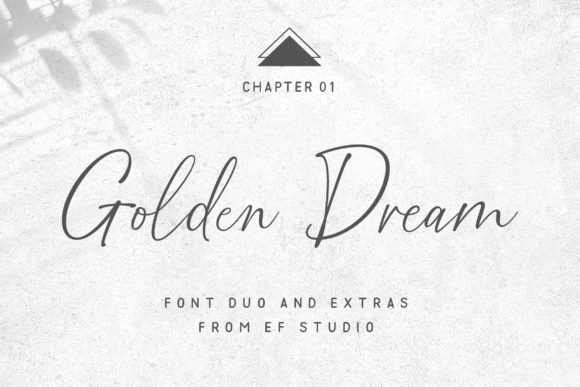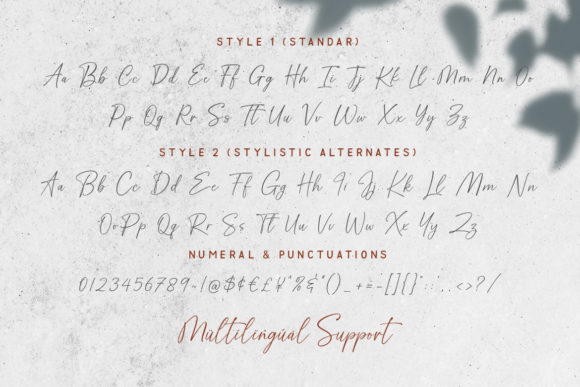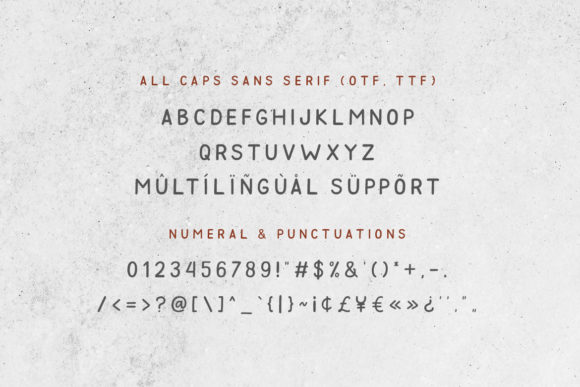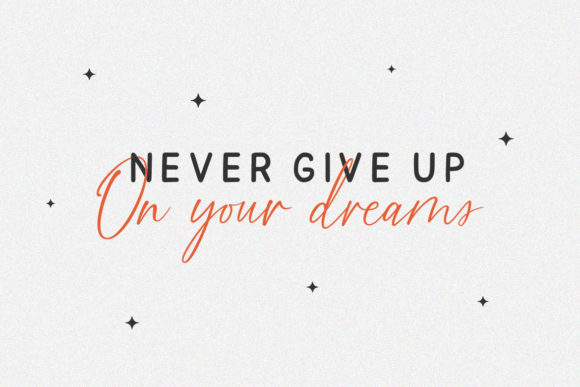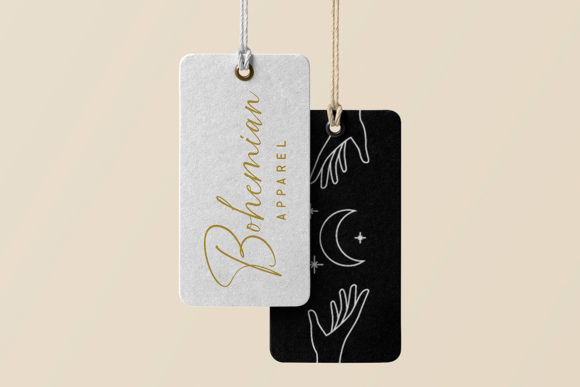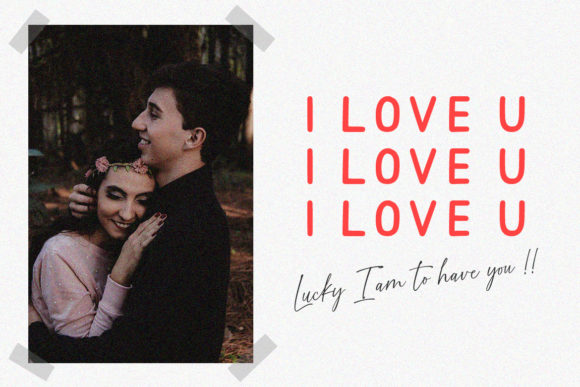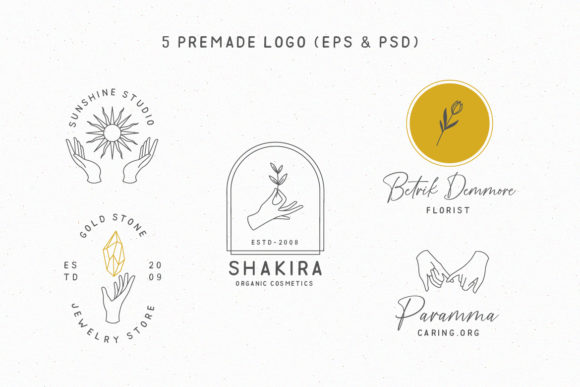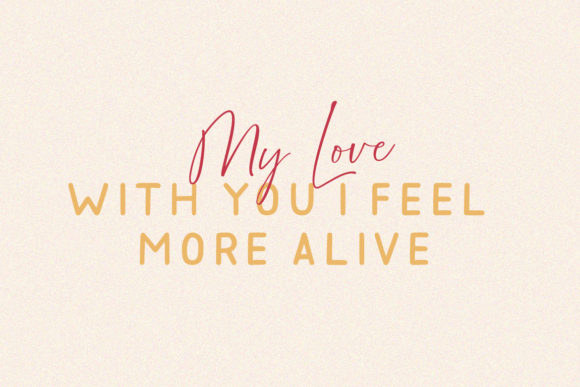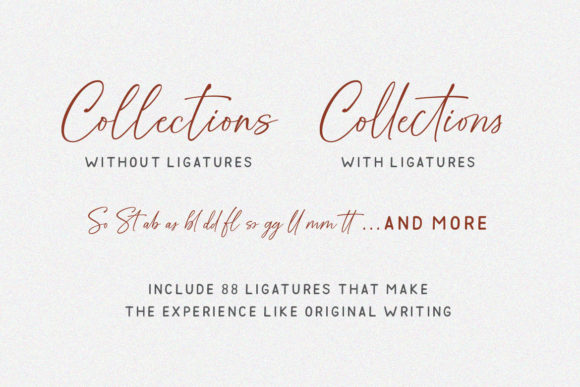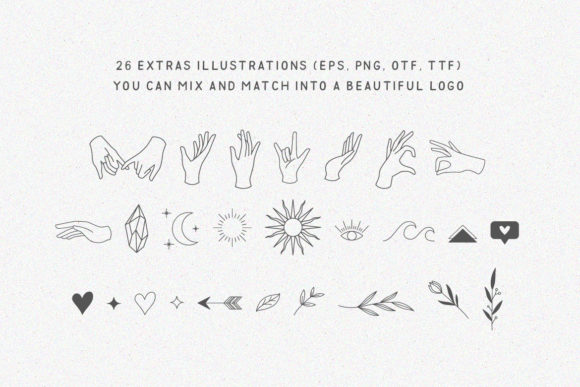
HomeScript FontsGolden Dream Duo Font Script Fonts Golden Dream Duo Font FacebookXPinterestWhatsApp Golden Dream Duo Font Poster 2 Golden Dream Duo Font Poster 3 Golden Dream Duo Font Poster 4 Golden Dream Duo Font Poster 5 Golden Dream Duo Font Poster 6 Golden Dream Duo Font Poster 7 Golden Dream Duo Font Poster 8 Golden Dream Duo Font Poster 9 Golden Dream Duo Font Poster 10 About Golden Dream Duo Font Golden Dream is an inspiring and creative font duo. These two fonts work together like a charm. DOWNLOAD ON CREATIVE FABRICAThis font is sold and delivered by Creative Fabrica. Font Canyon may earn a commission if you buy through this link. People also explored Lunar Star Font Wonder Sunshine Font Lovely Lillie Font Duo Placepage Font Qolam Regular Font Wonder Wolf Font Bonsai The Beach Font Simple Font 273 0 TagsGolden Dream Duo Font Previous articleRoyseen FontNext articleSerenity Script Font LEAVE A REPLY Cancel reply Comment: Please enter your comment! Name:* Please enter your name here Email:* You have entered an incorrect email address! Please enter your email address here Website: Save my name, email, and website in this browser for the next time I comment. Personal Use Free Makeba Font Personal Use Free Read more about this font Burgie Personal Use Free Read more about this font Aelten Personal Use Free Read more about this font Histeria Bites Personal Use Free Read more about this font BLOG Fonts That Capture the Spirit of New York City New York City is more than just a place—it’s an experience, a rhythm, a visual language... The 10 Best Handwriting Fonts to Add Personality to Your Designs Exploring Font Trends Transform Your Website: Elevate Your Typography with 7 Best Web Font Generators